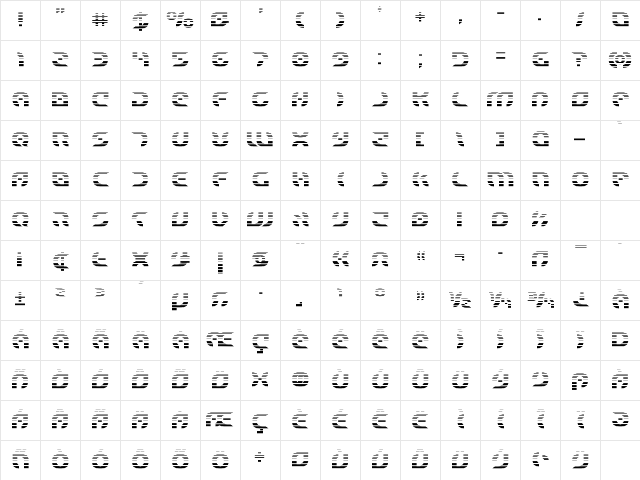
Starfighter Gradient Regular Free Font
Starfighter Gradient Regular
Design Context for Starfighter Gradient
Starfighter Gradient is a composed and adaptable typeface that performs quietly and consistently across a wide range of design contexts.